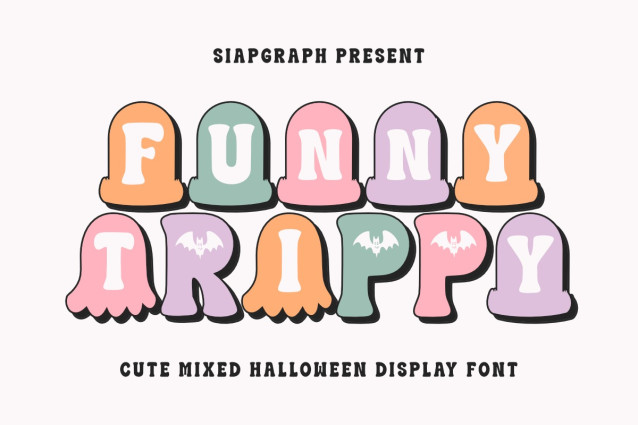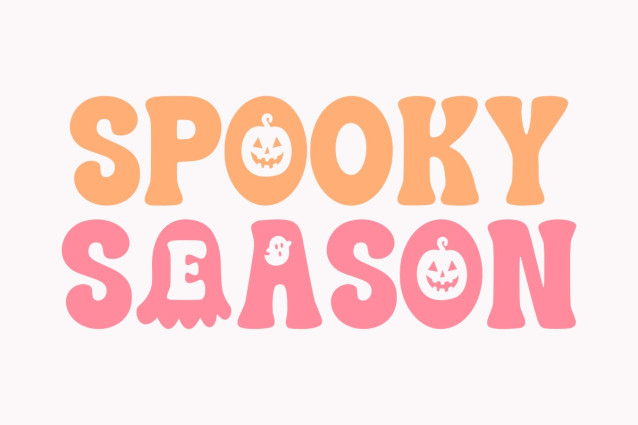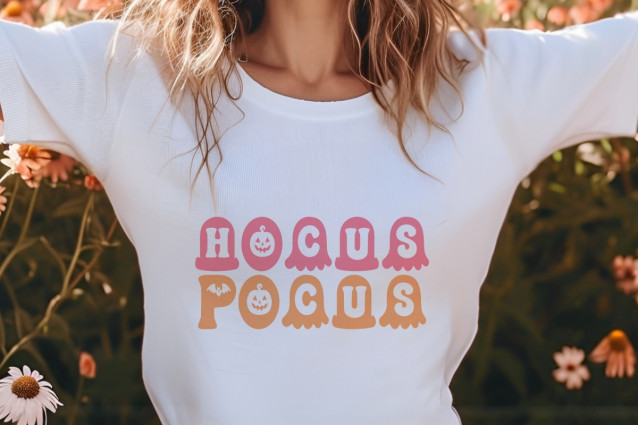
Funny Trippy Font
Funny Trippy Font is a cute and playful mixed Halloween display font. Great for DIY projects, Cricut crafts, sublimation, stickers, greeting cards, kids’ Halloween party invitations, scrapbooking, and fun seasonal decorations. Perfect for crafters, makers, and creative entrepreneurs who love adding a whimsical and spooky touch to their projects.